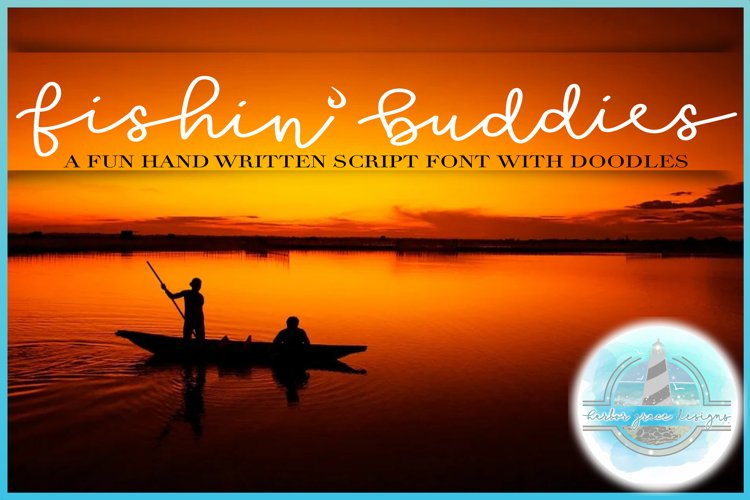
Fishin' Buddies Hand Written Script Font PLUS Doodles
Fishin' Buddies is a hand written script font with lots of options!
Perfect for creating one-of-a-kind gifts for the fishing enthusiast in your life!!
The Fishin' Buddies Doodles font includes 61 different fishing day elements!